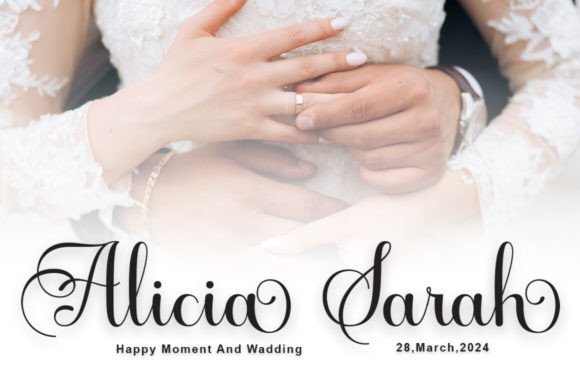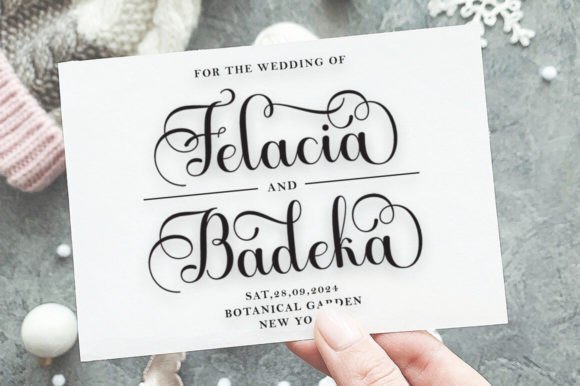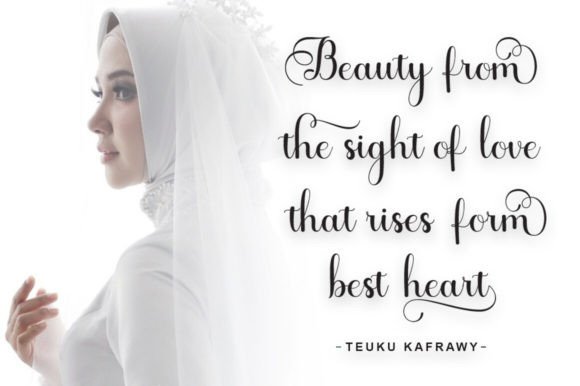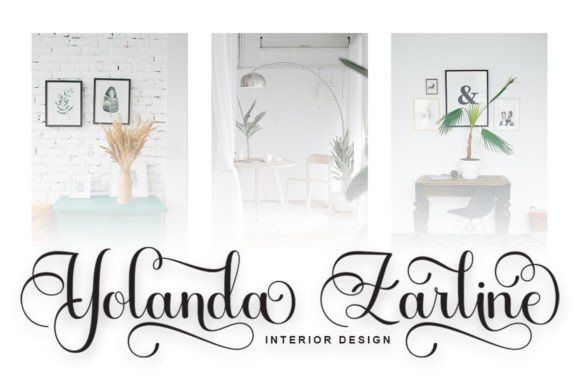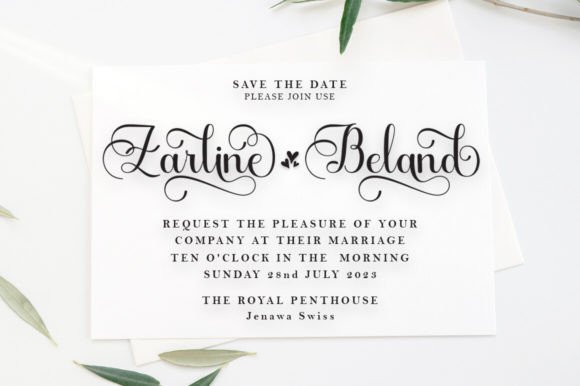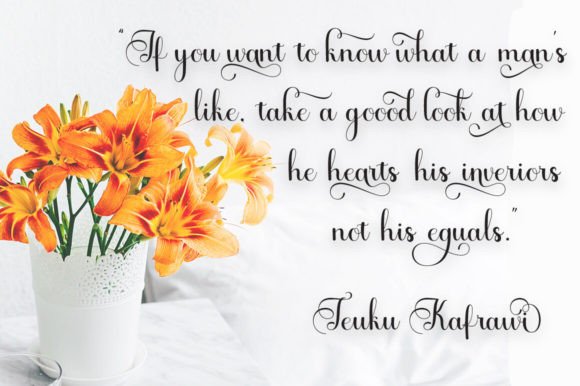
The Art of Elegant Typography: Unlocking the Power of Cheilly Font
Have you ever found yourself scribbling notes in a journal, pouring your thoughts onto paper in a flowing script that seems to dance across the page? For many creatives, there’s something special about the tactile experience of handwriting, the way the words seem to come alive as you write. And that’s exactly the feeling you get when you use the Cheilly Font – a beautiful, handwritten typeface that captures the essence of traditional calligraphy.
Whether you’re a designer, writer, or artist, the Cheilly Font is a valuable tool in your creative arsenal. Its elegant, expressive characters add a sophisticated touch to any project, from wedding invitations to magazine articles. By incorporating the Cheilly Font into your work, you can instantly elevate your design and give it a timeless, refined feel that will leave a lasting impression on your audience.
Cheilly Font Key Features
- Unique Characteristic: Distinctive, elegant script style with a touch of vintage flair, ideal for creative and artistic projects
Designer Review: Cheilly Font
Overall, I think Cheilly Font has some great qualities, but also some areas where it falls short. Let’s start with the good stuff ✨.
- Cheilly Font has a lovely, elegant feel to it. The curves are smooth and the lines are clean.
- The font is highly legible, even at smaller sizes.
- The font supports a wide range of languages, making it a great choice for global projects.
Now, let’s talk about some of the limitations ⚠️:
- The font lacks a lot of variation in weight and style. It’s mostly a single, elegant line.
- The font is not ideal for titles or headings, as it’s a bit too subtle and understated.
- Some users may find the font a bit too feminine or cutesy, depending on the context.
Overall, I think Cheilly Font is a solid choice for body text and other secondary content. However, it may not be the best fit for projects that require bold or attention-grabbing typography.
The Cheilly Font is ideal for:
1. Luxury brand designs
2. Fashion and beauty packaging
3. High-end marketing materials
4. Wedding invitations and stationery
5. Any design that requires a touch of elegance and sophistication.